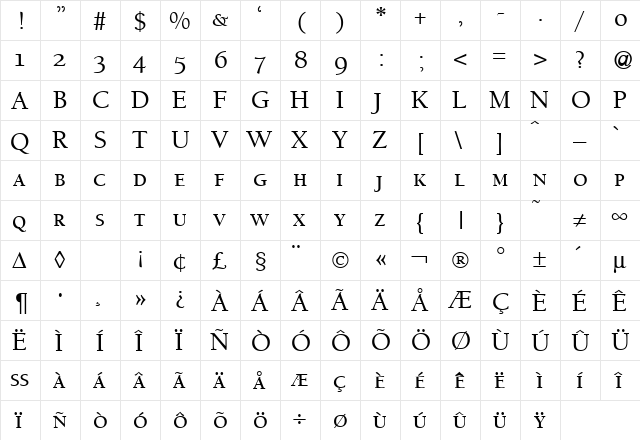
BergmannOldStyleSmc Regular
Design Context for BergmannOldStyleSmc Typeface
BergmannOldStyleSmc carries the refined structure of traditional serif typography, with bracketed terminals and considered proportions that communicate credibility and craft.